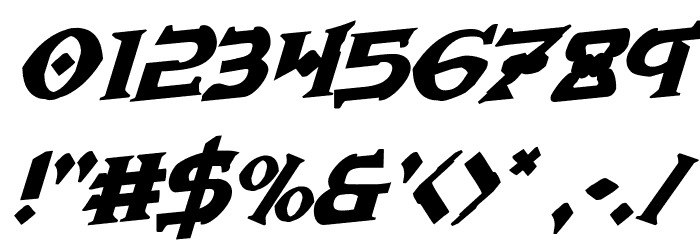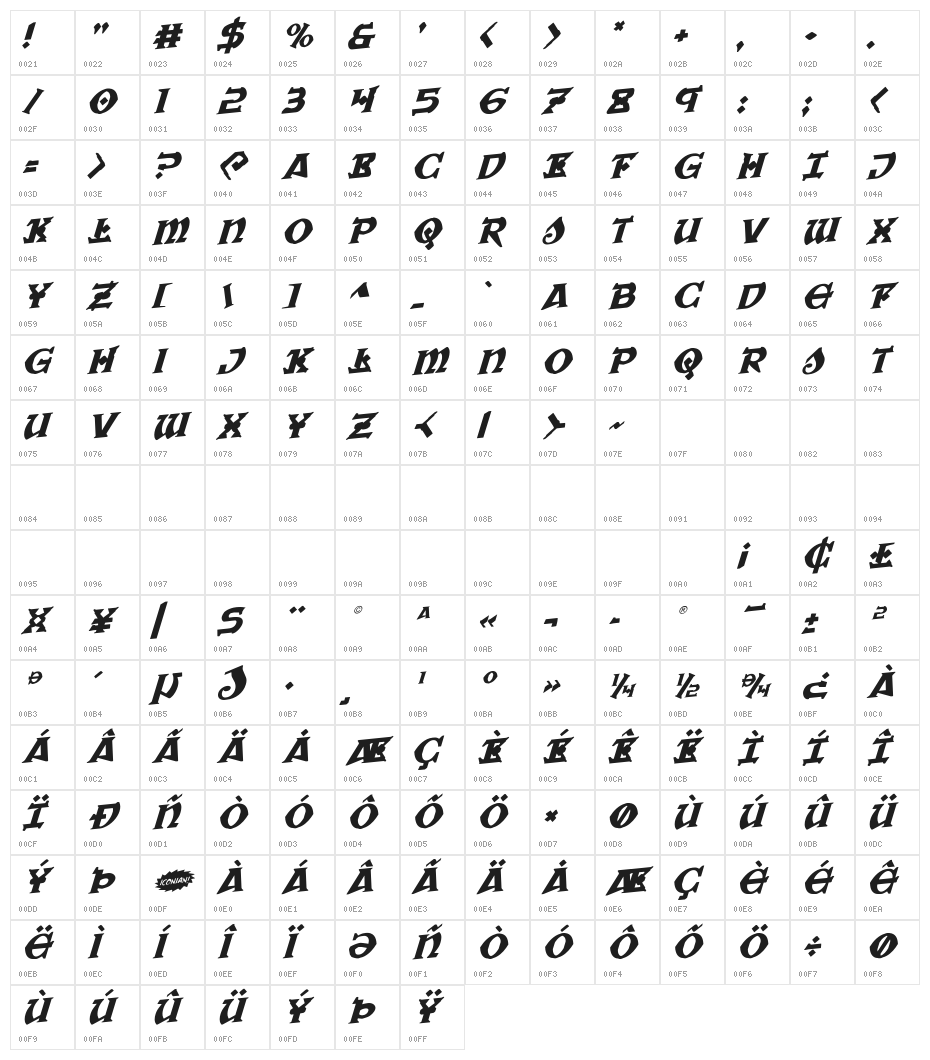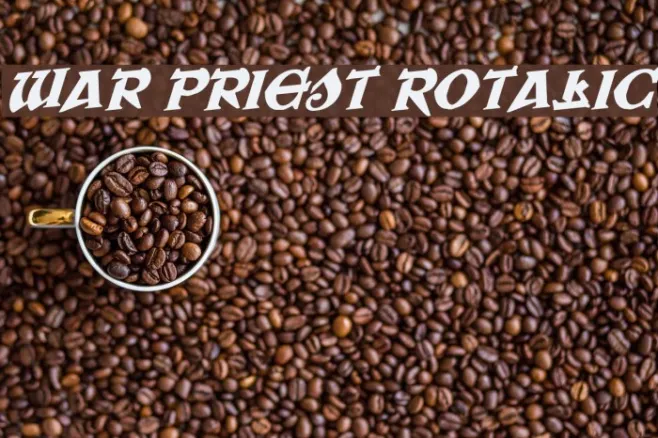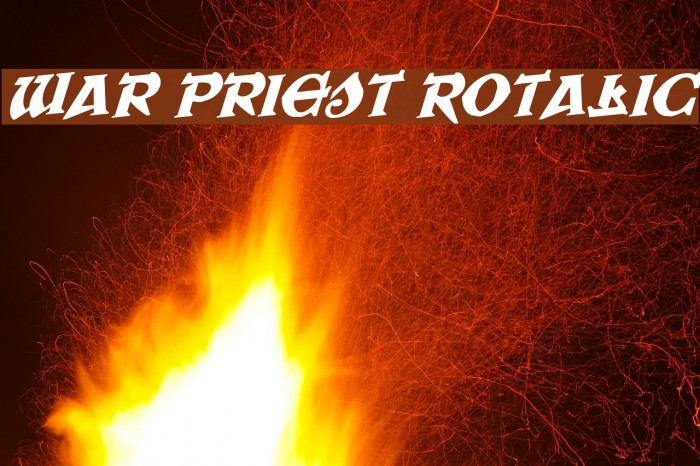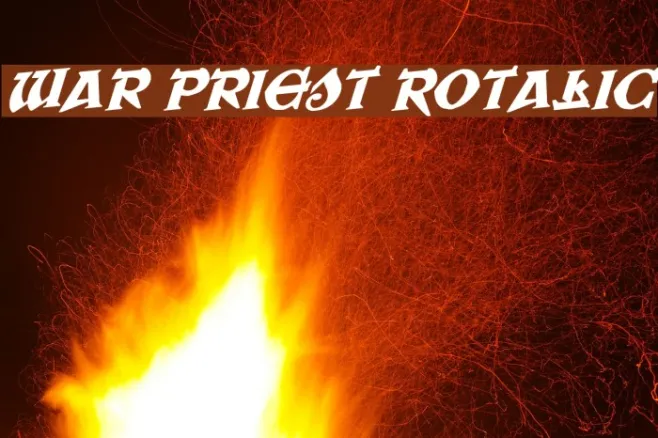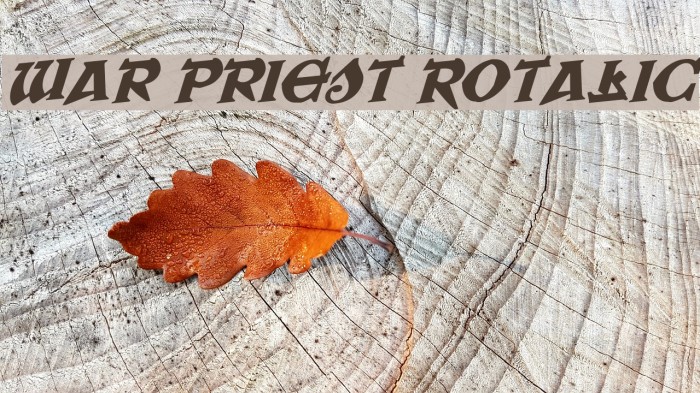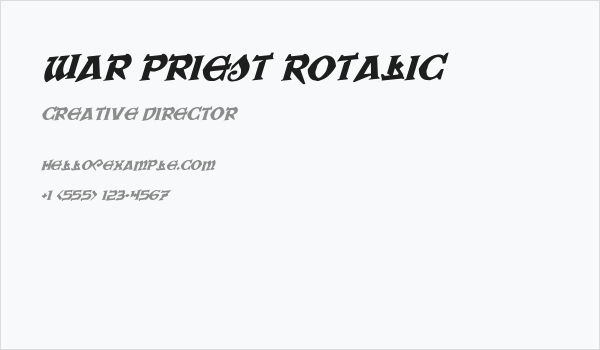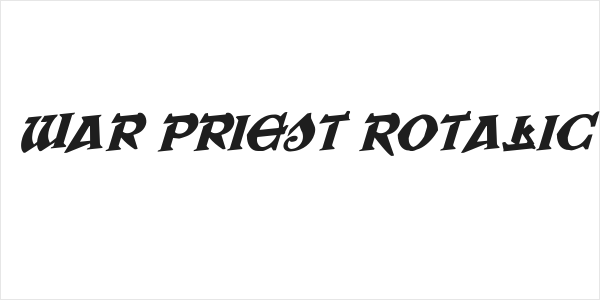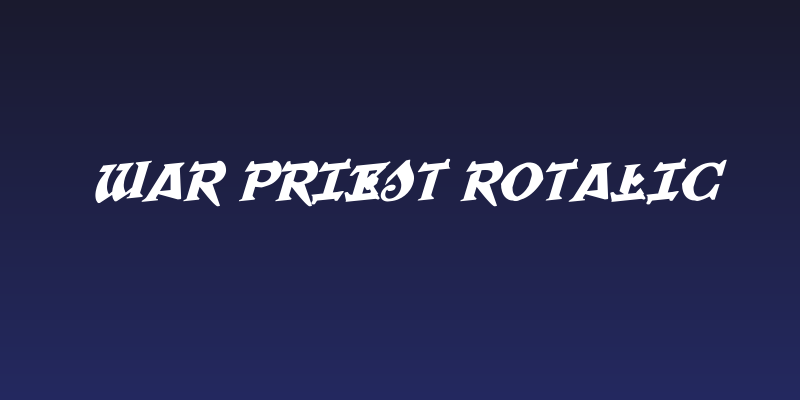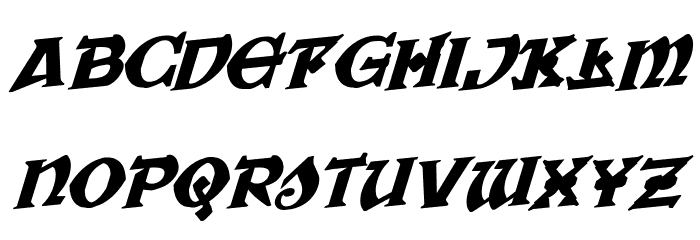
War Priest Rotalic Font
War Priest Rotalic Description
This font features a bold and aggressive style with sharp, angular lines and a distinct slant, giving it a dynamic and powerful appearance. The uppercase and lowercase letters maintain a consistent design, emphasizing strong geometric shapes and pointed serifs. The numbers and special characters follow the same stylistic approach, ensuring uniformity across all glyphs. The overall aesthetic is reminiscent of medieval or fantasy themes, making it suitable for projects that require a dramatic and impactful visual presence.
| Proposed Projects | Ideal for fantasy-themed designs, gaming titles, movie posters, or any project needing a dramatic and bold typeface. |